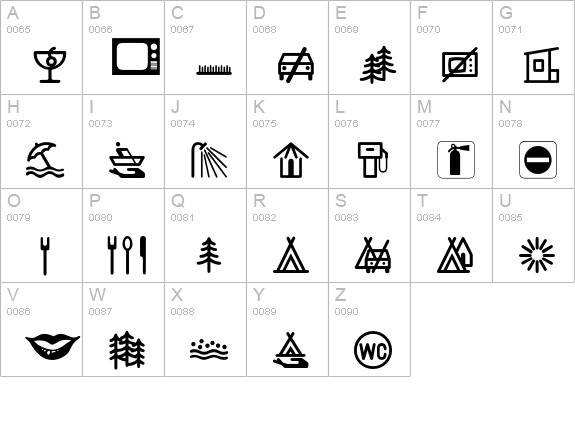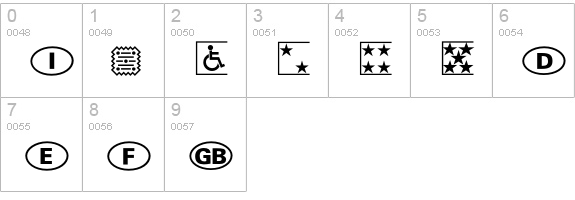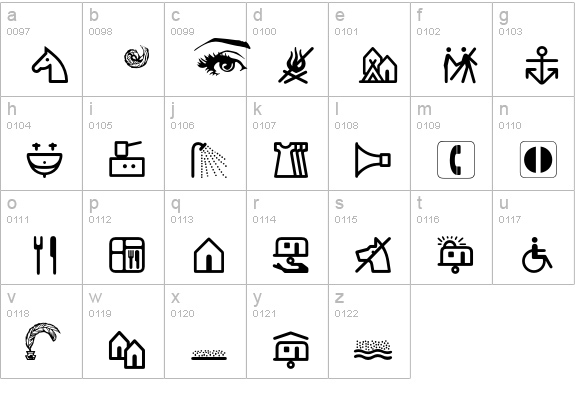
CommunicationsP05 Font Details
CommunicationsP05 font is a versatile and modern typeface that exudes professionalism and sophistication. With its clean lines and sleek design, this font is perfect for a wide range of communication projects, from business presentations to marketing materials. The font features a unique blend of elegance and readability, making it ideal for both print and digital applications. One of the best things about CommunicationsP05 font is that it is available for free download at FontsMarket.com. This means that you can easily access this high-quality font without any cost, making it a great choice for designers and creatives on a budget. Whether you're working on a personal project or a professional assignment, CommunicationsP05 font is sure to elevate the look and feel of your designs. Don't miss out on this fantastic opportunity to enhance your typography collection with a free and stylish font like CommunicationsP05.